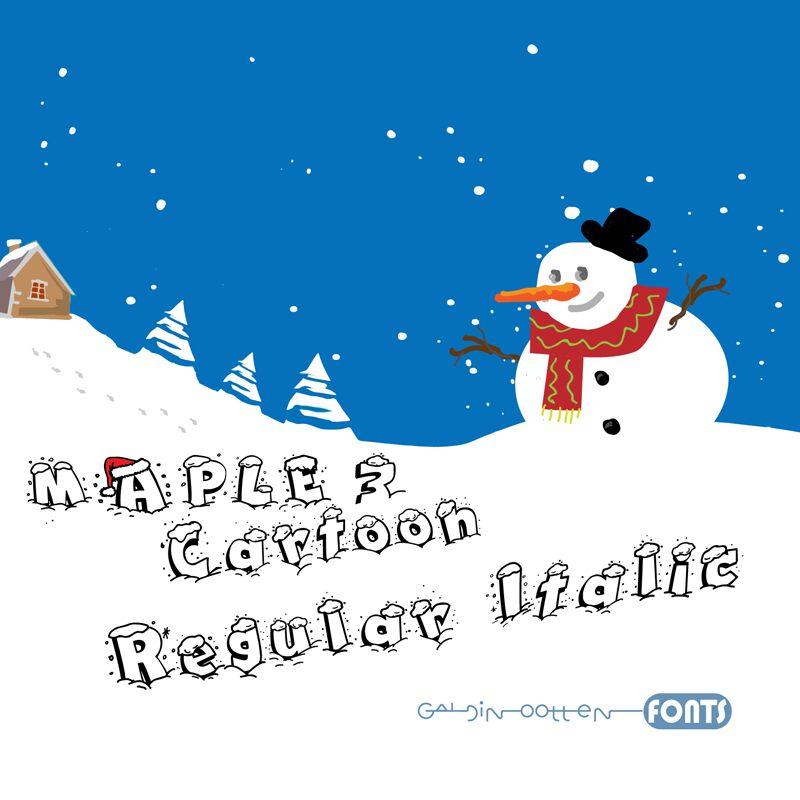
Maple 3 Cartoon font by Galdino Otten Fonts is a quirky experimental cartoon style with unique structural elements. Each character has a funky beaded snowflake design inside that give it a playful mood. The limitless creative options make this font exceptional in many design contexts.
Potential use cases are greeting card designs, banners, t-shirt designs, events advertising materials, book covers, social media posts, labels & stickers, posters & flyers.